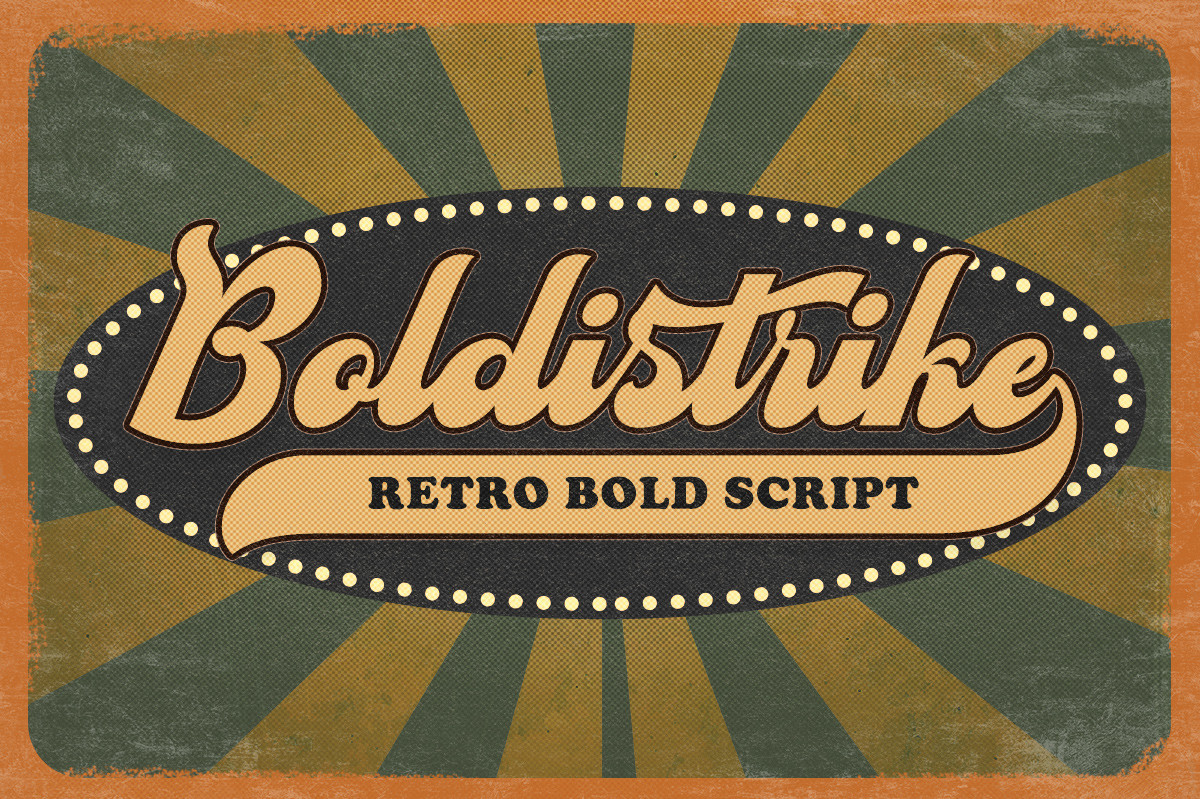
Boldistrike Font
Boldistrike Font is widely used in action movie titles, sports team branding, competitive gaming logos, fitness center signage, military-themed designs, extreme sports marketing, combat sports promotions, and high-impact advertising campaigns.
Boldistrike Font is an exciting typeface that commands attention with its powerful presence and aggressive design language. This font embodies strength, determination, and unstoppable force, making it perfect for brands that want to convey dominance, competitive spirit, and bold leadership in their commanding visual communications.
The Boldistrike Font family consists of Regular, Bold, Light, Italic, Condensed, Extended, Stencil, and Impact variants. This commanding collection enables designers to create forceful visual hierarchies that maintain aggressive consistency while offering tactical flexibility for various competitive and high-energy applications.
Boldistrike Font Free Download provides exceptional impact power for designers working with competitive and action-oriented brands. The font's striking appearance and forceful character create an immediate sense of strength and competitive advantage. This typeface excels in projects where dominance, power, and winning mentality must inspire confidence and command respect in challenging environments.
The distinctive force of Boldistrike Font lies in its ability to convey uncompromising strength and tactical precision through bold typographic design. Each letterform has been engineered to maximize visual impact while maintaining the disciplined structure essential for professional military and sports applications. The font's aggressive angles and strategic weight distribution create commanding presence that demands attention and respect.
Competitive organizations and action brands choose Boldistrike Font for its power to communicate strength and tactical superiority. The typeface performs exceptionally well in military contractor communications, professional sports branding, competitive gaming tournaments, and high-performance equipment marketing. Its powerful aesthetic resonates with audiences who value strength, discipline, and competitive excellence.
The tactical engineering of Boldistrike Font includes optimized weight distribution and strategic character spacing that ensures maximum readability while maintaining aggressive visual impact. These combat-ready specifications make it particularly effective for high-contrast signage, competitive gaming interfaces, and applications where clarity and commanding presence must work together to communicate mission-critical information in high-pressure environments.